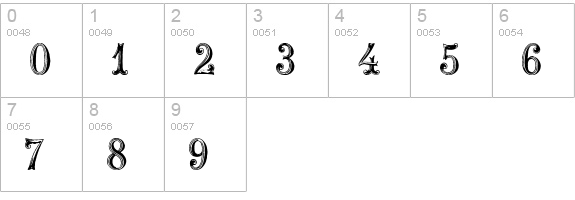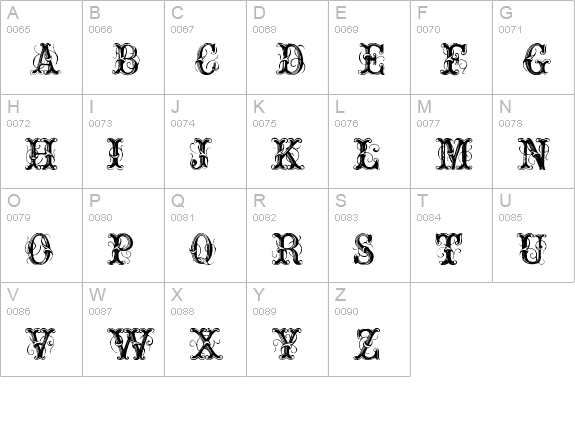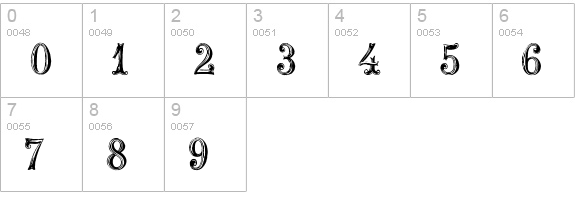
ExtraOrnamentalNo2 Font Details
ExtraOrnamentalNo2 is a stunning and elegant decorative font that adds a touch of sophistication to any design project. With its intricate and ornate details, this font exudes a sense of luxury and grandeur. Perfect for invitations, greeting cards, posters, and more, ExtraOrnamentalNo2 will elevate your designs to the next level. And the best part? This exquisite font is available for free! Simply head over to FontsMarket.com to download ExtraOrnamentalNo2 and start incorporating its beauty into your creative projects today. Whether you're a professional designer or a hobbyist looking to add a special flair to your work, ExtraOrnamentalNo2 is sure to impress with its timeless charm and versatility.